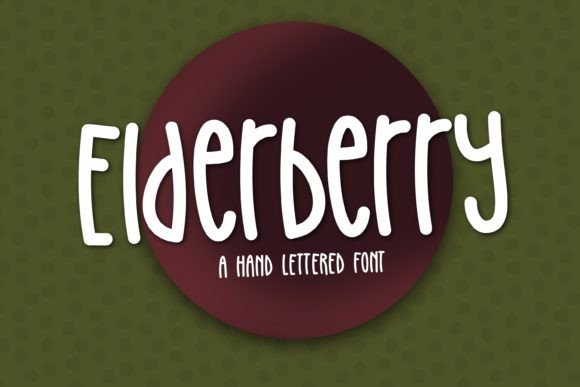
Introducing Elderberry: The Playful Hand-Lettered Font for Creative Projects
Are you tired of using the same old fonts for your creative projects? Look no further than Elderberry, a playful and hand-lettered font that’s perfect for adding a homemade touch to your designs. With its bold and bouncy style, Elderberry is ideal for a wide range of projects, from invitations to crafty DIY designs.
The Charm of Hand-Lettered Fonts
Hand-lettered fonts have a unique charm that can add personality and character to any design. They offer a level of warmth and approachability that’s hard to achieve with more traditional fonts. Elderberry is no exception, with its rounded edges and slightly irregular strokes giving it a hand-drawn charm that’s impossible to resist.
What Makes Elderberry Special
So, what sets Elderberry apart from other fonts? Here are just a few of its standout features:
- Bold and Bouncy Style: Elderberry has a bold and bouncy style that’s perfect for making a statement. Whether you’re creating invitations, labels, or scrapbook titles, this font is sure to grab attention.
- Hand-Drawn Charm: With its rounded edges and slightly irregular strokes, Elderberry has a hand-drawn charm that’s perfect for adding a personal touch to your designs.
- Versatility: Elderberry is a versatile font that can be used for a wide range of projects, from formal invitations to crafty DIY designs.
Elderberry is a font that’s specifically designed with designers and crafters in mind. Whether you’re creating digital designs or handmade crafts, this font is perfect for adding a personal touch to your work.
For designers, Elderberry offers a unique and eye-catching way to add personality to your designs. Use it to create stunning invitations, social media graphics, and more.
For crafters, Elderberry is perfect for adding a handmade touch to your DIY projects. Use it to create cute labels, heartfelt notes, and scrapbook titles that will make your projects stand out.
Tips for Using Elderberry
Here are a few tips for getting the most out of Elderberry:
- Experiment with Sizes: Elderberry looks great in a variety of sizes, from small and delicate to large and bold. Experiment with different sizes to find the one that works best for your project.
- Pair with Other Fonts: Elderberry pairs well with a variety of other fonts, from simple sans-serifs to more ornate script fonts. Experiment with different pairings to find the one that works best for your project.
- Use for Headlines and Titles: Elderberry is perfect for headlines and titles, where its bold and bouncy style can really make an impact.
Elderberry is a playful and hand-lettered font that’s perfect for adding a homemade touch to your creative projects. With its bold and bouncy style, this font is ideal for anything from invitations to crafty DIY designs. Whether you’re a designer or a crafter, Elderberry is a font that’s sure to bring personality and charm to your work. So why not give it a try and see the difference it can make?
Get Creative with Elderberry
Ready to get creative with Elderberry? Here are a few ideas to get you started:
- Create a Set of Invitations: Use Elderberry to create a set of invitations for a special occasion, such as a birthday or wedding.
- Make Some Cute Labels: Use Elderberry to create cute labels for your DIY projects, such as handmade crafts or baked goods.
- Design a Scrapbook Page: Use Elderberry to design a scrapbook page that’s full of personality and charm.
Whatever your project, Elderberry is a font that’s sure to inspire your creativity and bring a touch of homemade charm to your designs.